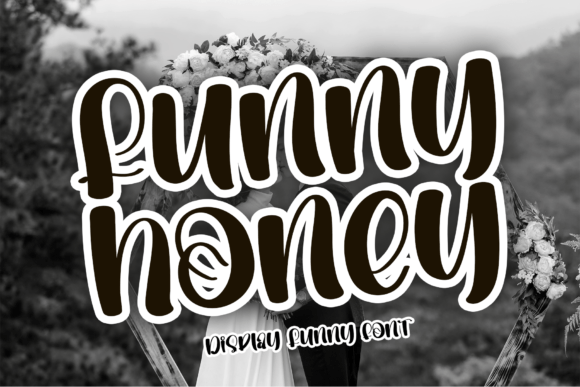
Introducing Funny Honey Font: The Magical Display Font for Elegant Designs
Are you tired of using the same old fonts for your designs? Do you want to add a touch of elegance and whimsy to your creative projects? Look no further than Funny Honey Font, a magical display font carefully crafted to bring a sense of sophistication and playfulness to your designs.
What is Funny Honey Font?
Funny Honey Font is a unique and versatile display font that is perfect for a wide range of creative projects. Whether you’re looking for fonts for Instagram, calligraphy scripts for DIY projects, or elegant text for wedding invitations, this font is sure to impress. With its elegant and cursive design, Funny Honey Font is the perfect choice for anyone looking to add a touch of whimsy and sophistication to their designs.
The Features of Funny Honey Font
So, what makes Funny Honey Font so special? Here are just a few of the features that set it apart:
- Elegant and Cursive Design: Funny Honey Font features an elegant and cursive design that is perfect for adding a touch of sophistication to your designs.
- Magical and Whimsical: With its playful and whimsical design, Funny Honey Font is perfect for adding a touch of magic to your designs.
- Versatile: Whether you’re creating designs for Instagram, DIY projects, or wedding invitations, Funny Honey Font is the perfect choice.
The Benefits of Using Funny Honey Font
So, why should you use Funny Honey Font for your designs? Here are just a few of the benefits:
- Adds Elegance and Sophistication: Funny Honey Font adds a touch of elegance and sophistication to your designs, making them perfect for special occasions.
- Perfect for Creative Projects: Whether you’re working on a DIY project or creating designs for Instagram, Funny Honey Font is the perfect choice.
- Easy to Read: Funny Honey Font is easy to read, even at small sizes, making it perfect for use in a wide range of designs.
- Unique and Versatile: Funny Honey Font is a unique and versatile font that can be used in a wide range of designs, from wedding invitations to DIY projects.
Examples of Funny Honey Font in Use
Here are a few examples of Funny Honey Font in use:
- Wedding Invitations: Funny Honey Font is perfect for use in wedding invitations, adding a touch of elegance and sophistication to your designs.
- DIY Projects: Whether you’re creating signs, banners, or other DIY projects, Funny Honey Font is the perfect choice.
- Instagram Designs: Funny Honey Font is perfect for use in Instagram designs, adding a touch of whimsy and sophistication to your posts.
Tips and Tricks for Using Funny Honey Font
Here are a few tips and tricks for using Funny Honey Font:
- Use it Sparingly: While Funny Honey Font is a beautiful font, it can be overwhelming if used too much. Use it sparingly to add a touch of elegance to your designs.
- Experiment with Colors: Funny Honey Font looks great in a wide range of colors. Experiment with different colors to find the one that works best for your design.
- Pair it with Other Fonts: Funny Honey Font can be paired with other fonts to create a unique and interesting design.
In conclusion, Funny Honey Font is a magical display font that is perfect for adding a touch of elegance and whimsy to your designs. With its elegant and cursive design, Funny Honey Font is the perfect choice for anyone looking to create beautiful and sophisticated designs. Whether you’re working on a DIY project, creating designs for Instagram, or designing wedding invitations, Funny Honey Font is the perfect choice.
- Q: What is Funny Honey Font?
A: Funny Honey Font is a magical display font carefully crafted to bring a sense of sophistication and playfulness to your designs. - Q: Is Funny Honey Font easy to use?